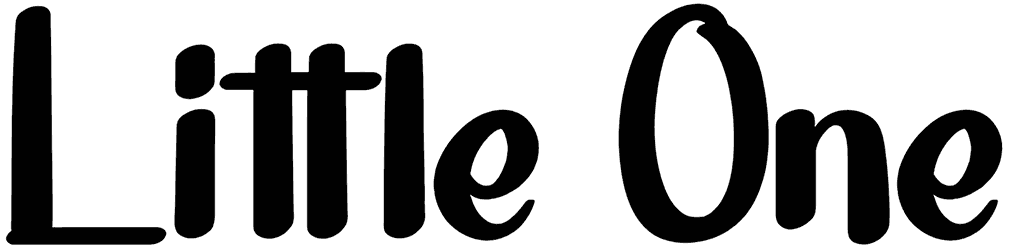
Little One Font
Little One is the name of this adorable script font that is funny and cute. Whether you’re making a logo, a blog header, a brand identity, or a poster, this stylish font will look great in any design project, even though it lacks numerical characters.